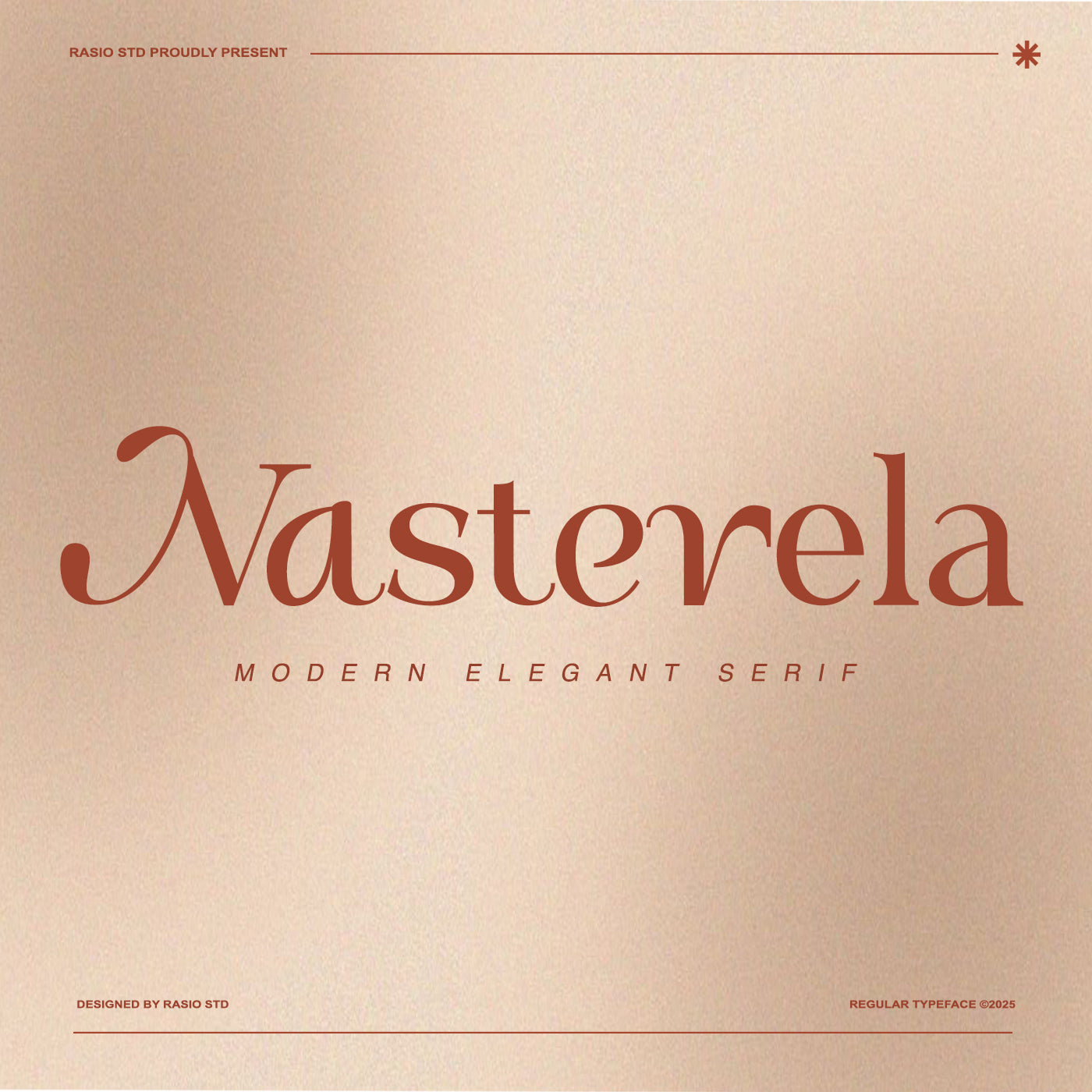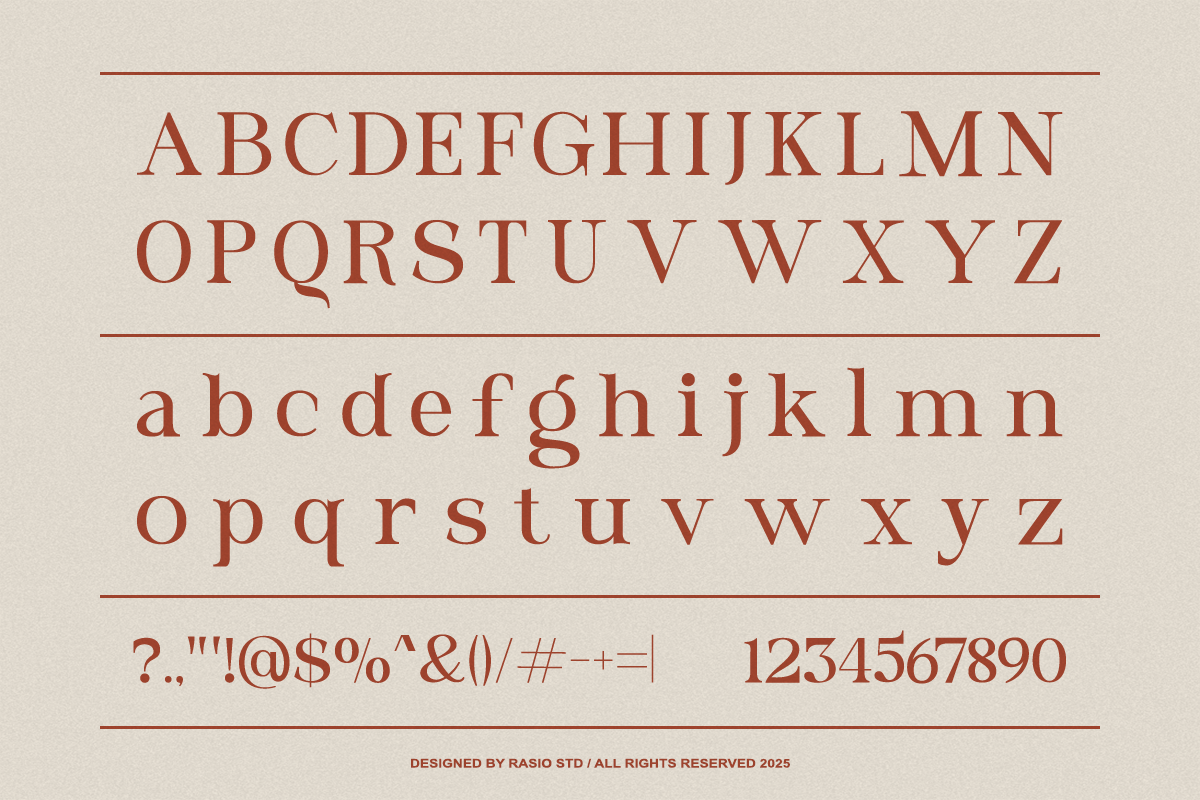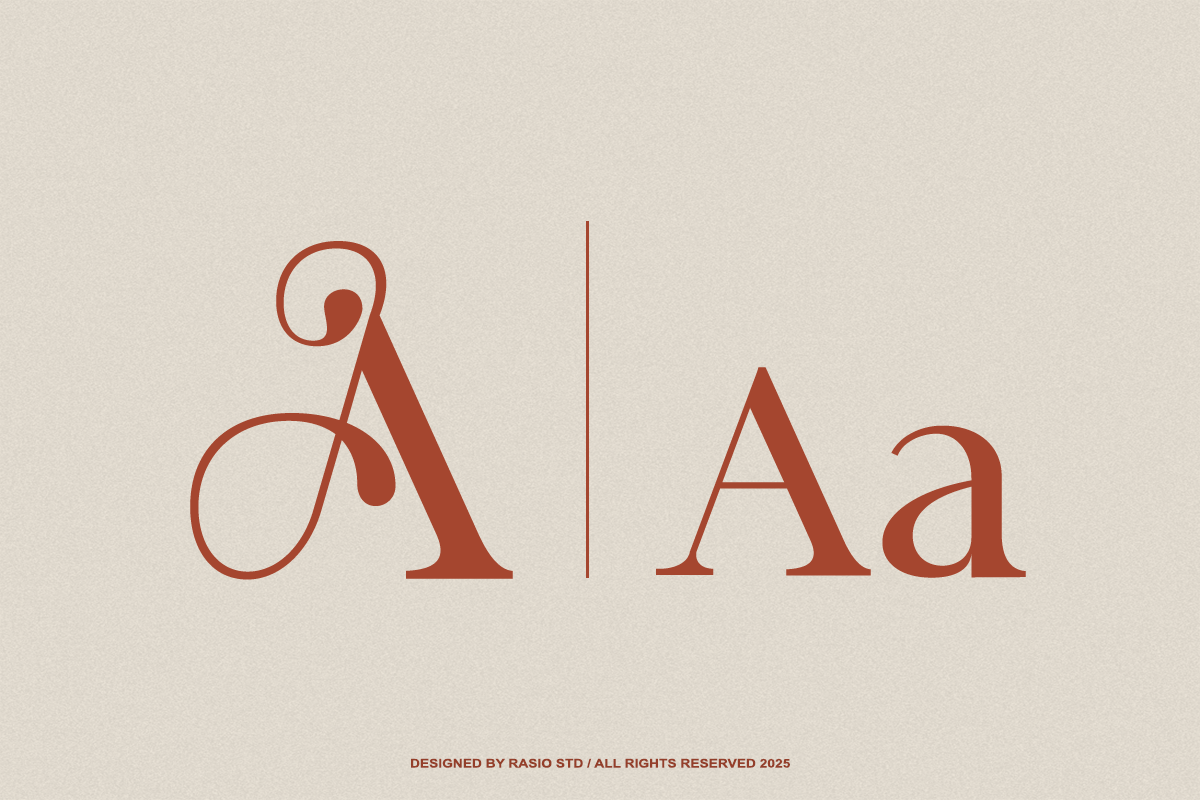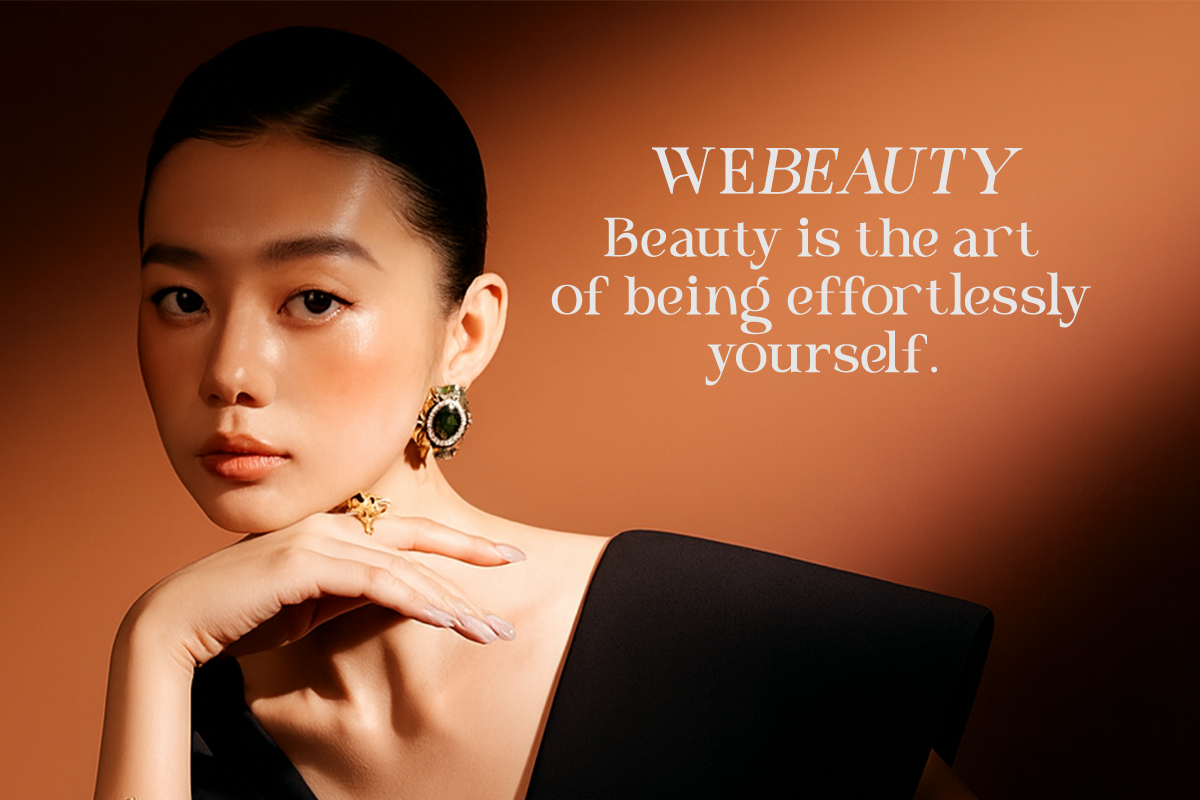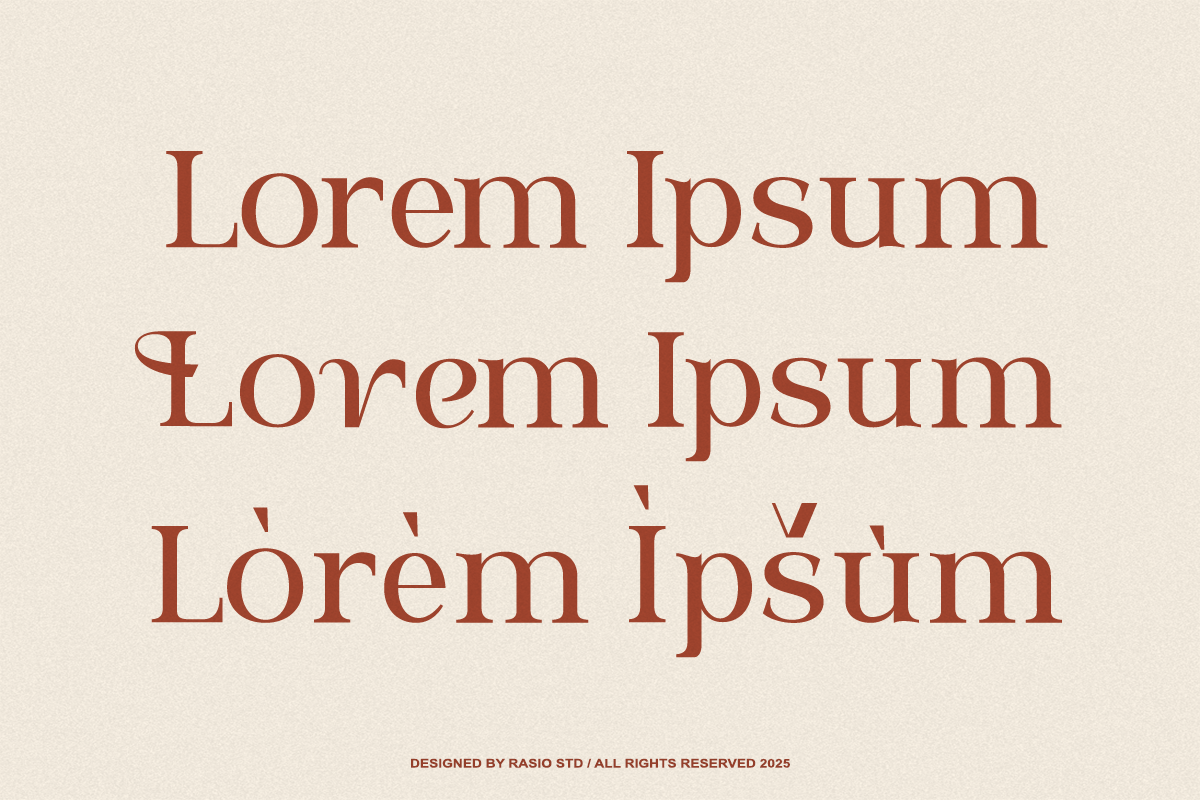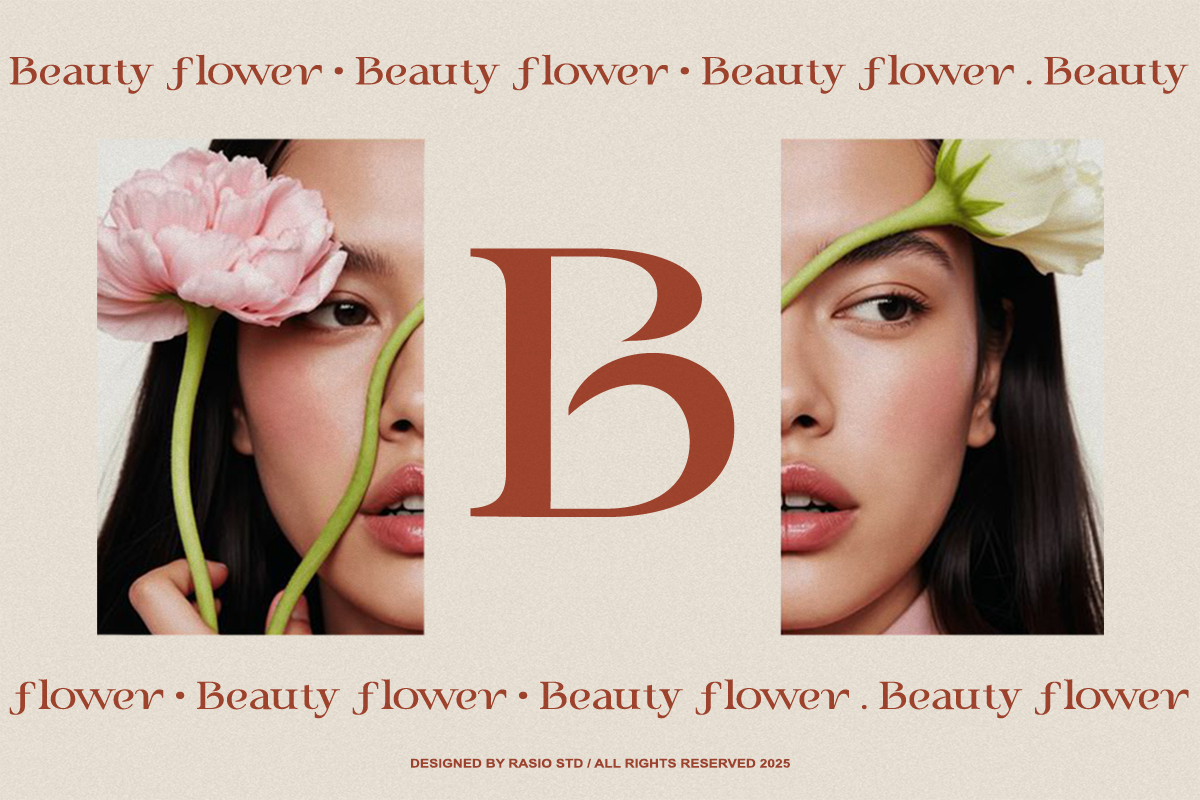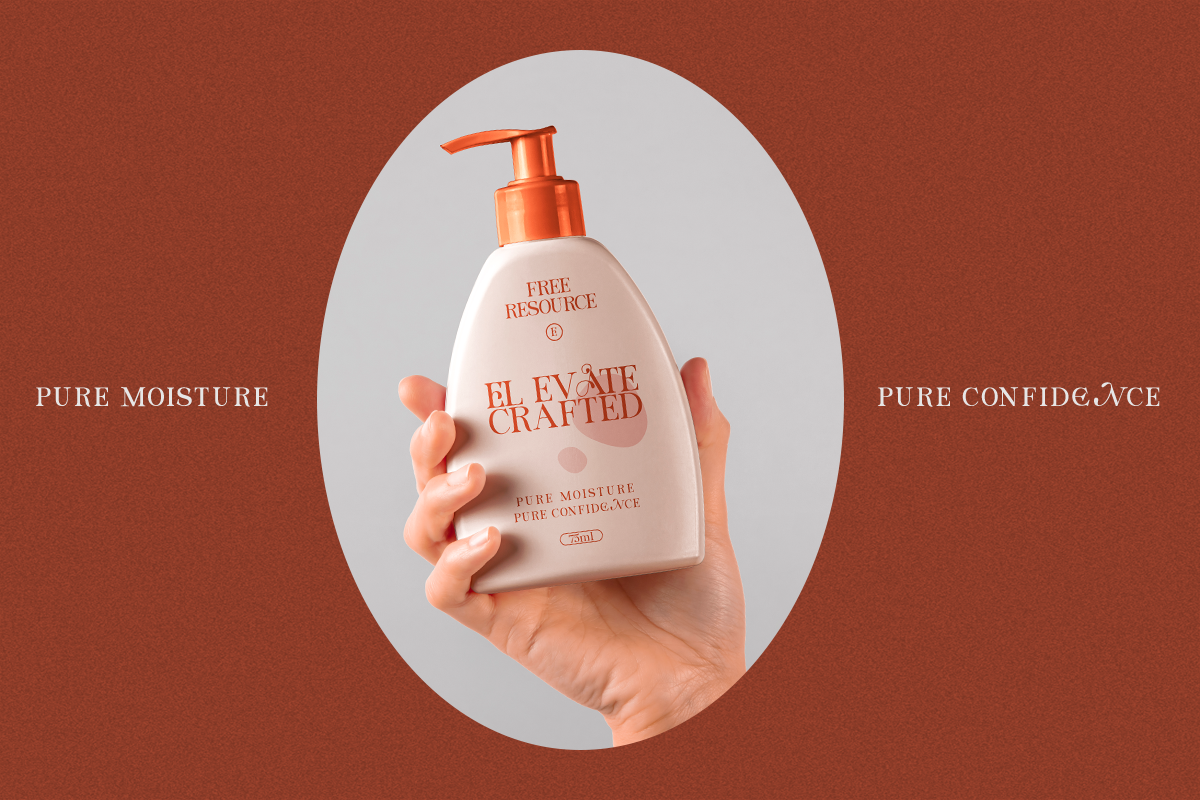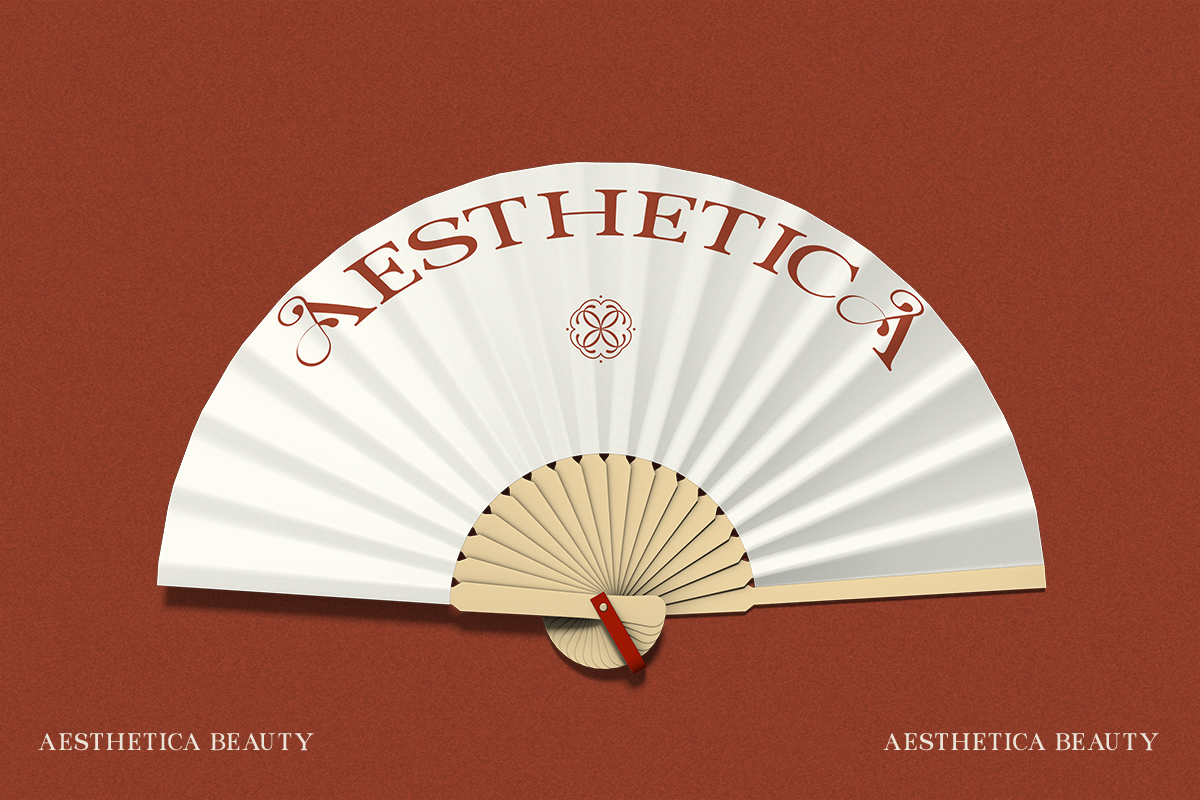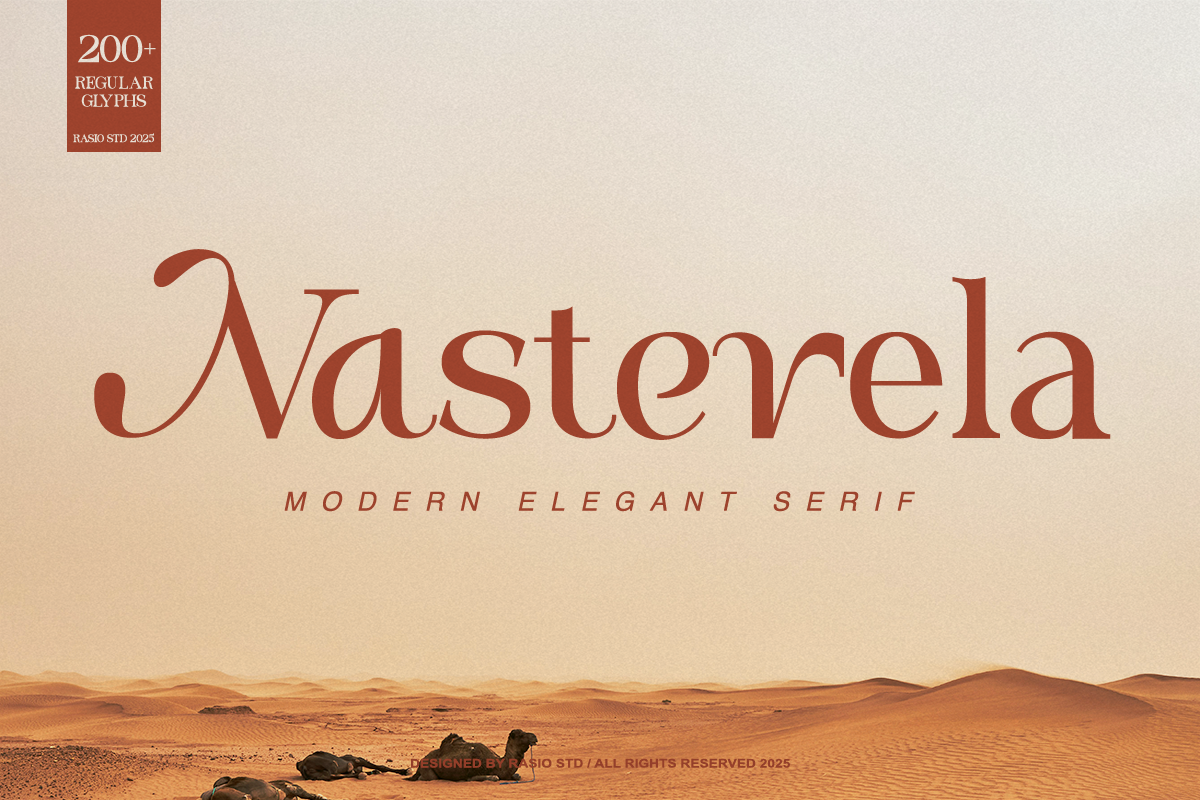
Nasterela Modern Elegant Serif Font
Nasterela is a modern elegant serif typeface that captures timeless sophistication with a contemporary twist. Designed with delicate high-contrast strokes, graceful curves, and unique character forms, Nasterela exudes refinement and style in every glyph. Its soft yet structured letterforms create a harmonious rhythm, making it highly readable for editorial use while maintaining visual flair for branding and display headlines. This font includes a full set of uppercase and lowercase letters, numerals, punctuation, and multilingual support.
Relevance and Use Cases is perfect for designers and creative professionals who seek a refined serif font for use in premium branding, fashion editorials, wedding stationery, upscale product packaging, and elegant digital content. Its harmonious balance of tradition and style ensures legibility while enhancing the beauty of your layout.
Nasterela is a modern serif typeface featuring high-contrast strokes and uppercase and lowercase letterforms, numerals, punctuation, and multilingual character support. It is available in OTF, TTF, and WOFF formats and includes ligatures and alternate characters.